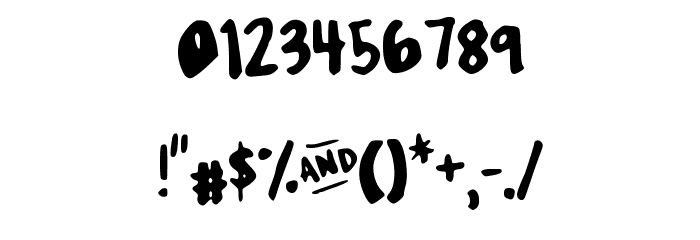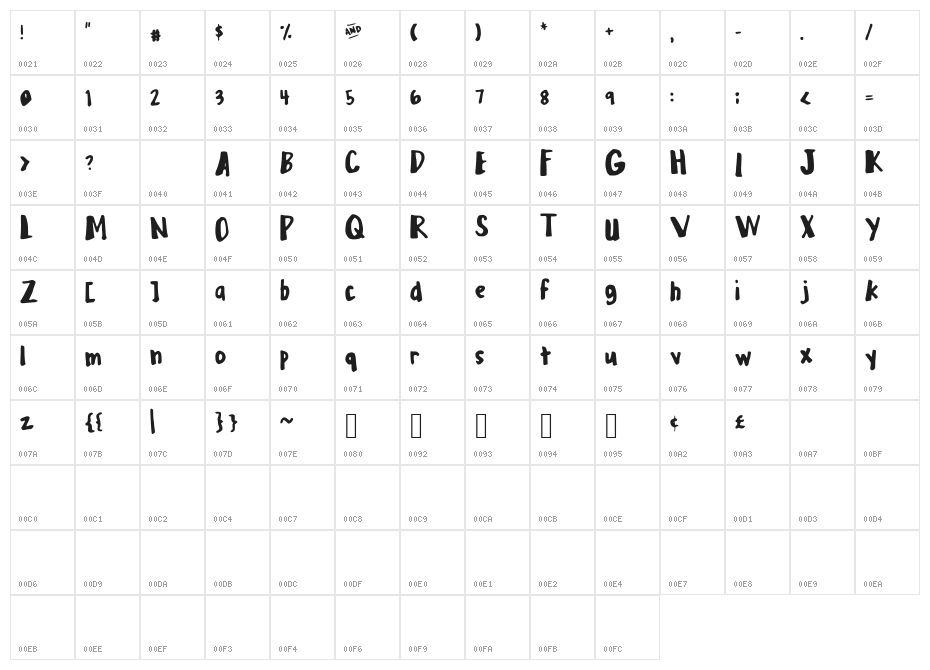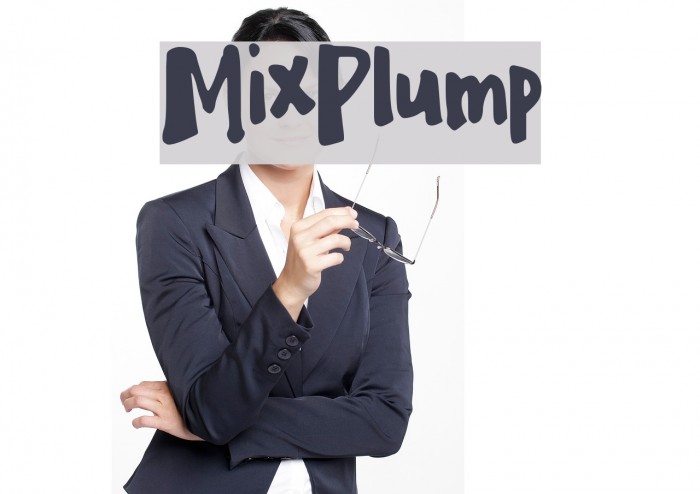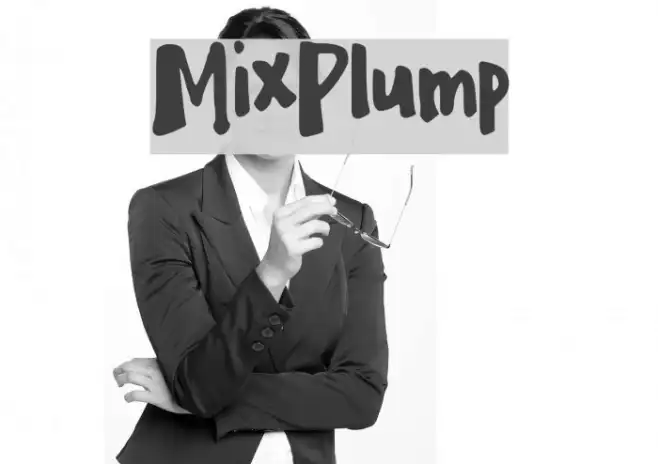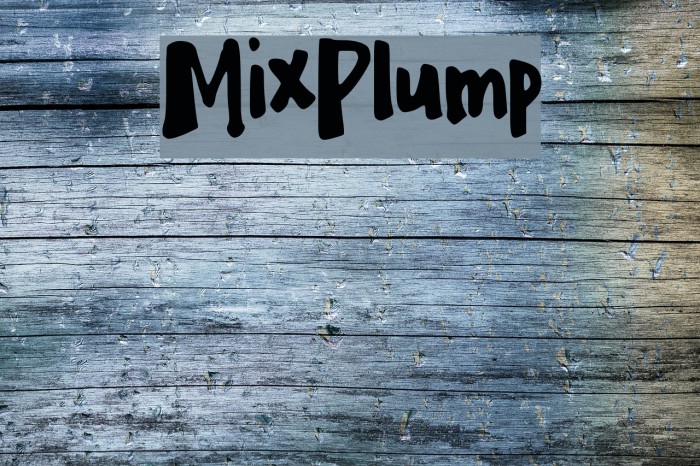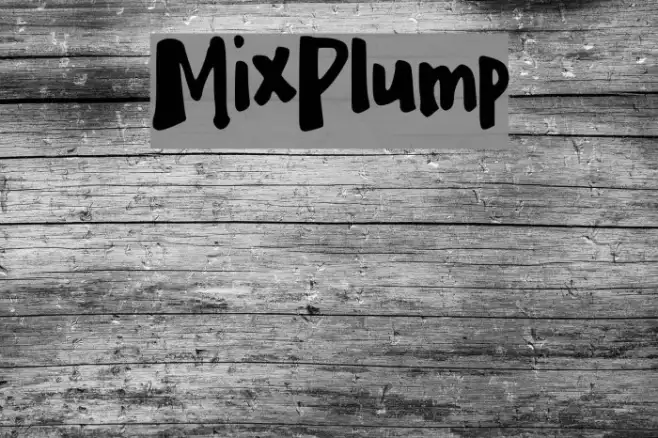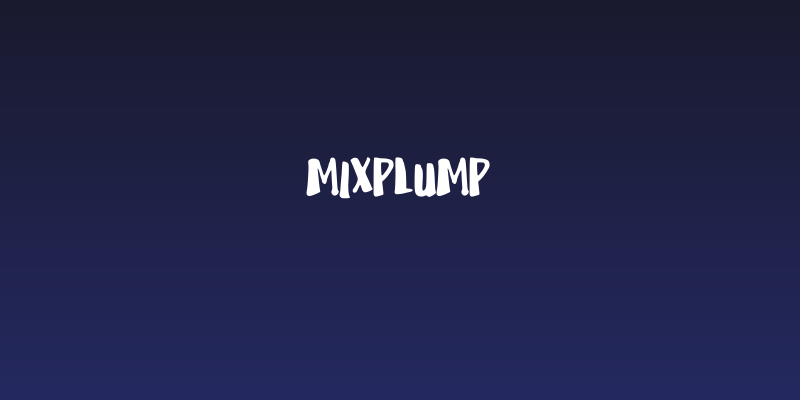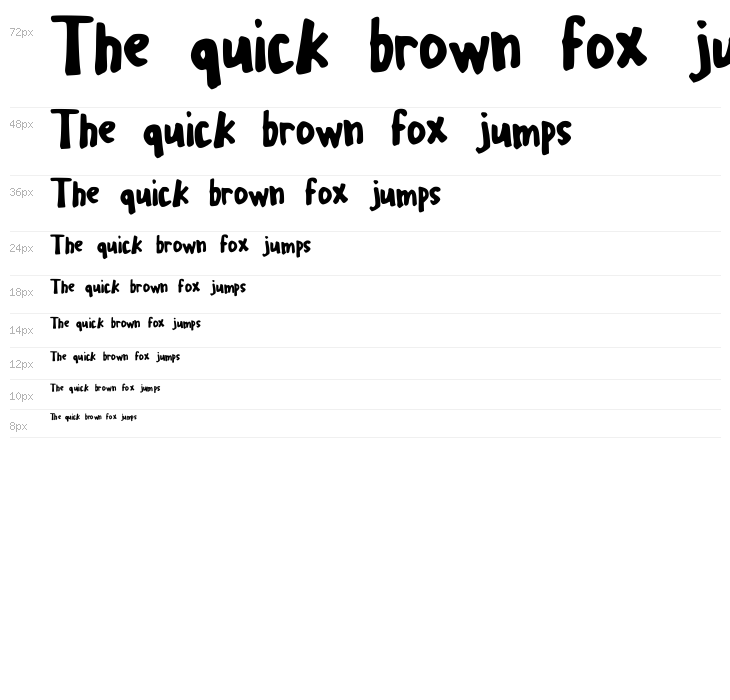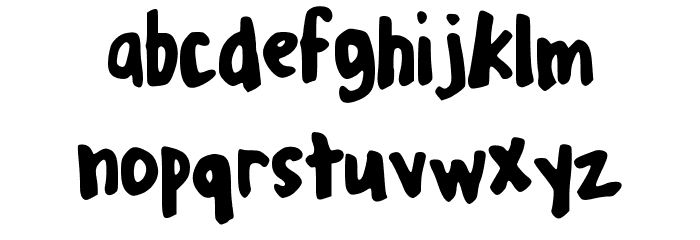
MixPlump Font
MixPlump Description
This playful and bold font features thick, rounded strokes that give it a friendly and approachable appearance. The characters are slightly irregular, adding a whimsical and hand-drawn feel. The uppercase and lowercase letters maintain a consistent style, with a noticeable emphasis on curves and rounded edges. The numerals and special characters follow the same design principles, ensuring a cohesive look across all elements. This font's unique style makes it stand out, perfect for projects that require a touch of creativity and fun.
| Proposed Projects | Ideal for children's books, playful branding, posters, and creative invitations. |